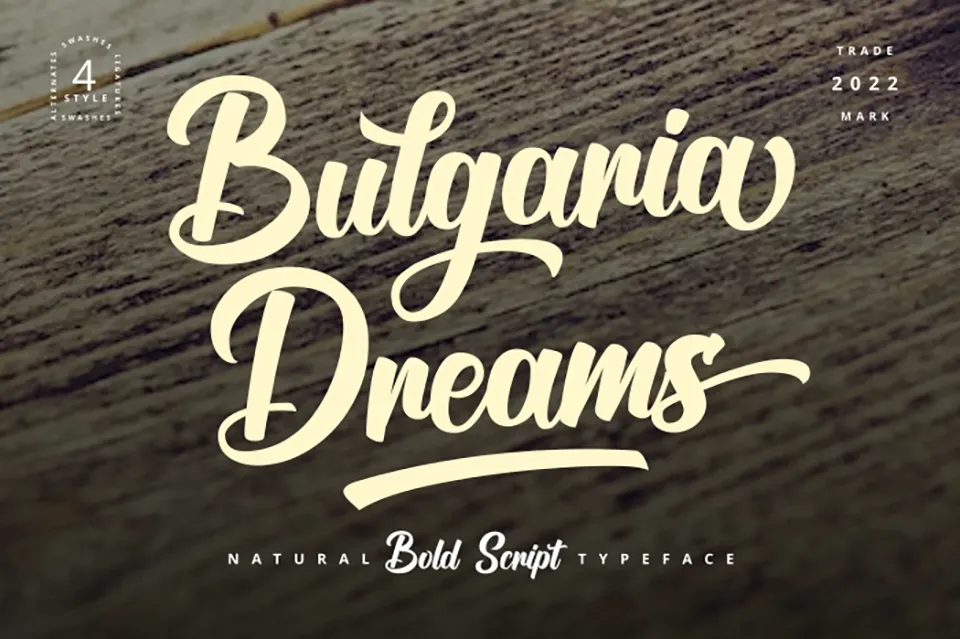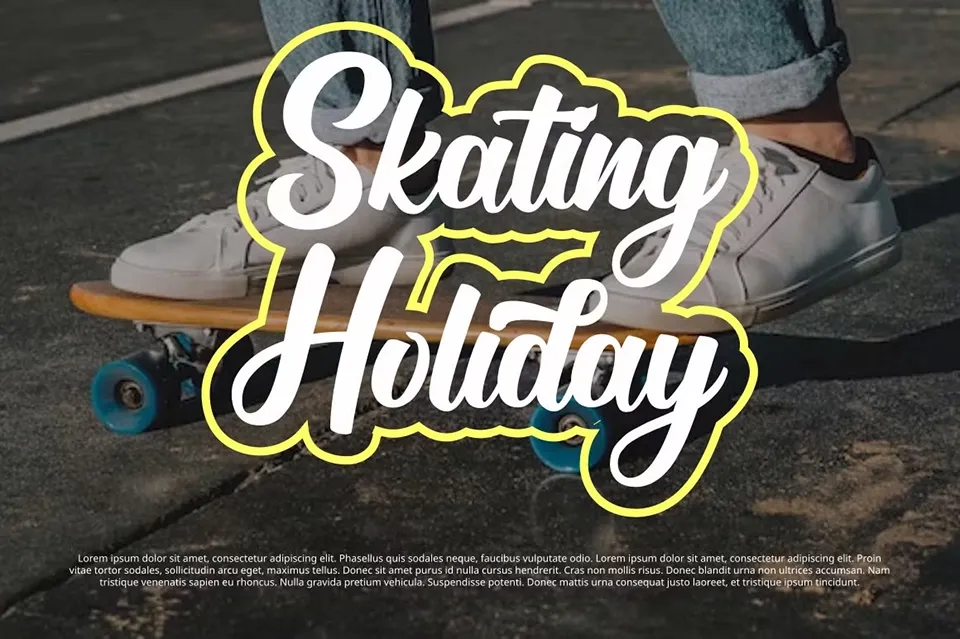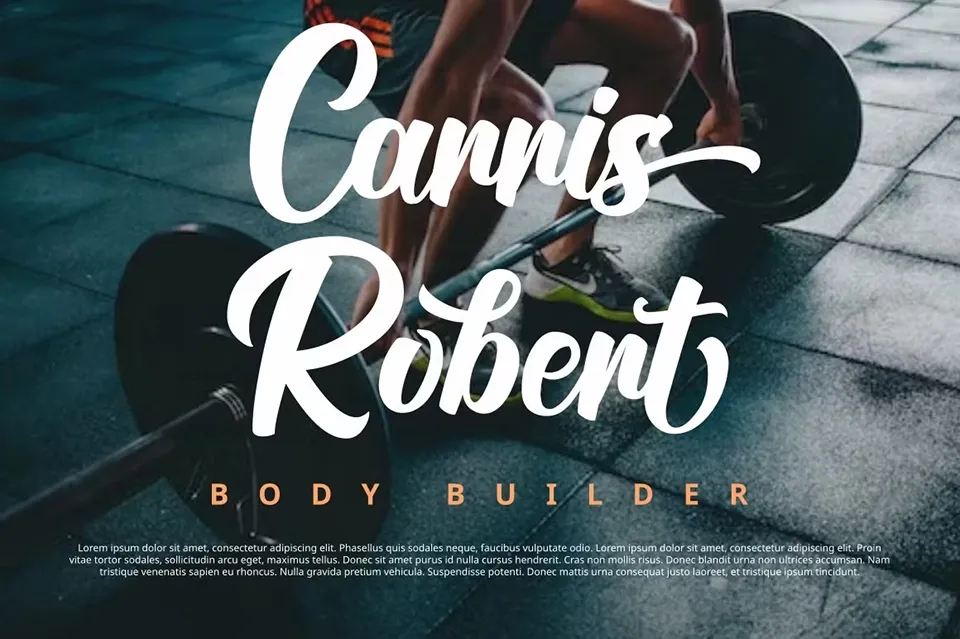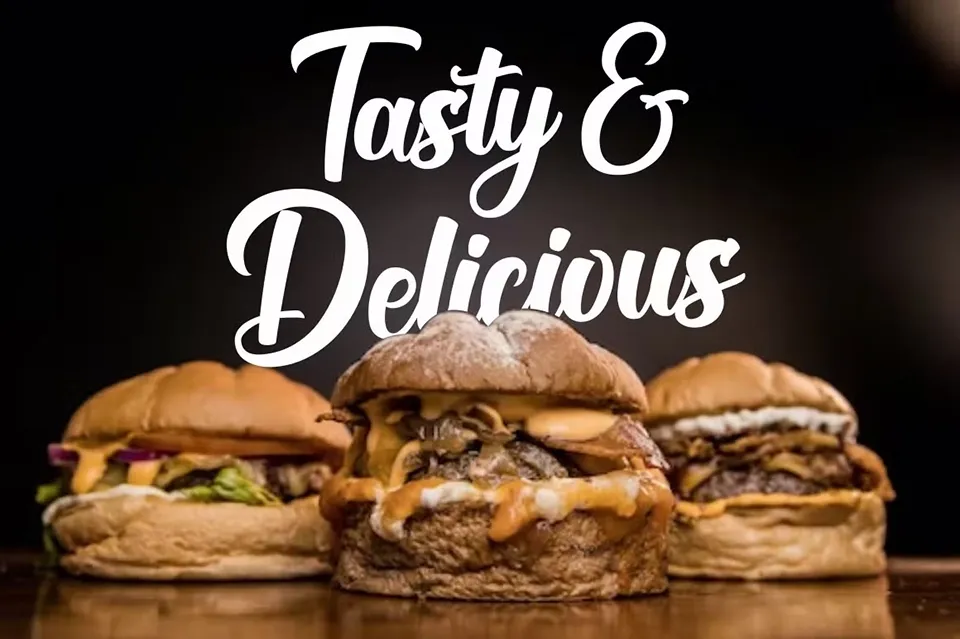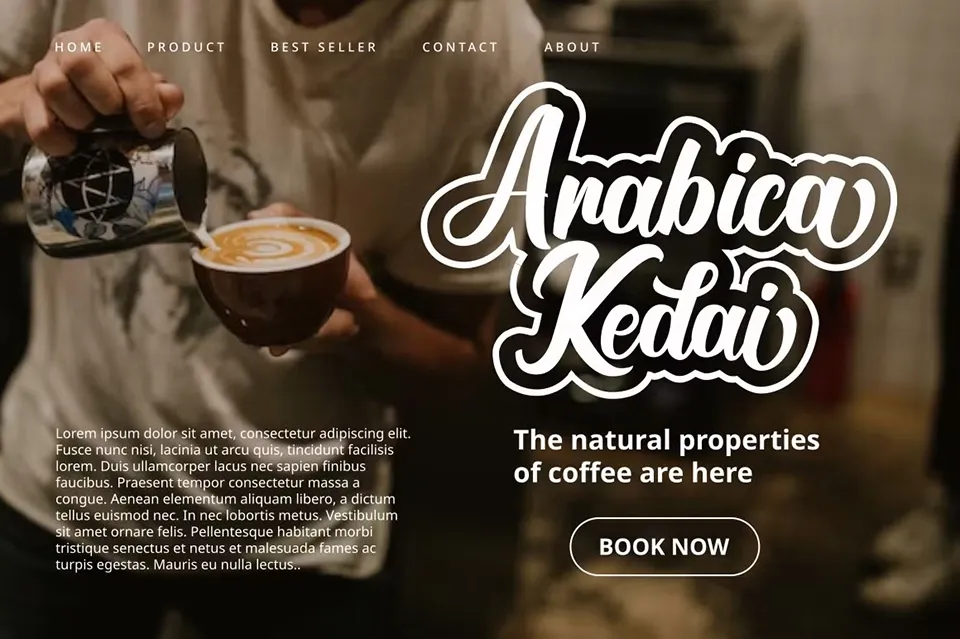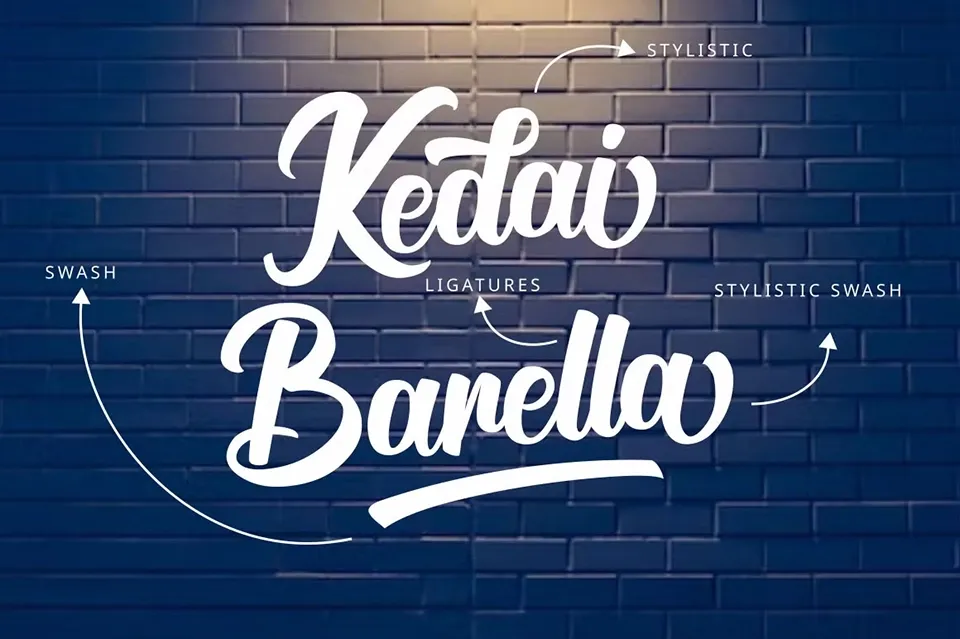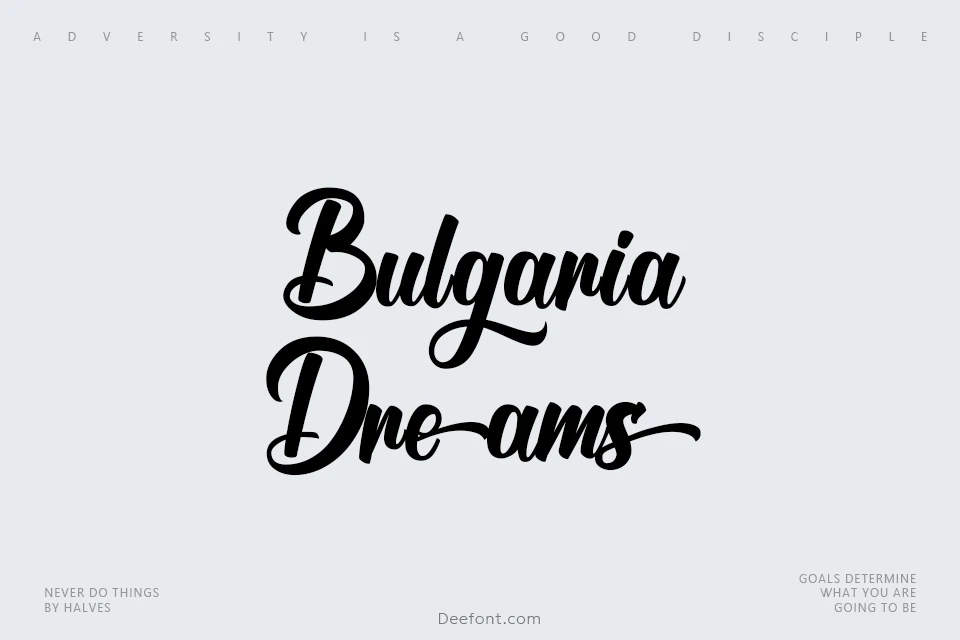
Bulgaria Dreams Font
Bulgaria Dreams Font, created by Rissyletter Studio, is described as an exquisite handwritten script typeface. It masterfully blends classy calligraphic influences with a contemporary and fresh feel. The lettering style features smooth, natural curved lines that mimic writing with a brush pen. Presented as a natural bold script, it comes in four versatile styles: Regular, Italic, Bold, and Bold Italic. Bulgaria Dreams is well-suited for logos, brochures, poster titles, book covers, lettering, and merchandise design, adding an elegant yet modern touch to creative projects.